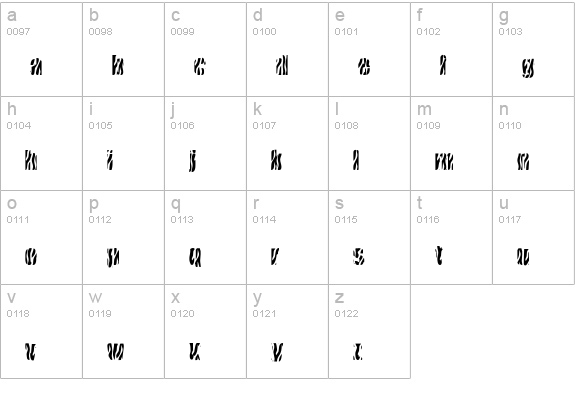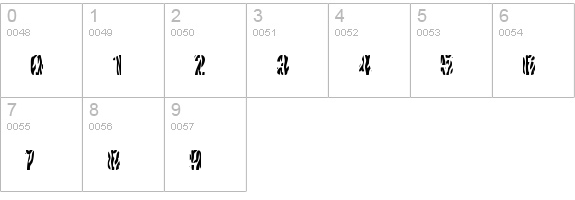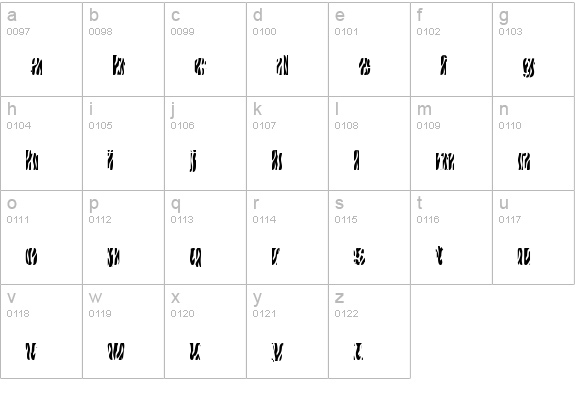
Cows In the U.S. Font Details
Cows In the U.S. font is a charming and whimsical typeface that evokes images of rolling pastures and sunny meadows. With its playful curves and delightful serifs, this font captures the essence of rural America. Each letter is elegantly crafted to resemble a grazing cow, adding a touch of countryside charm to your designs. This unique font is perfect for a variety of projects, from greeting cards to branding materials. Whether you're working on a farm-themed event or simply want to add a touch of rustic flair to your designs, Cows In the U.S. font will bring a smile to your audience's faces. Best of all, this font is freely available to download at FontsMarket.com. So go ahead and add a touch of Americana to your projects with Cows In the U.S. font today!